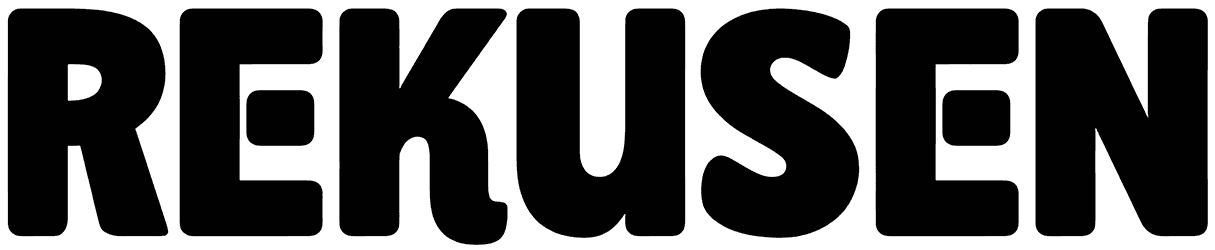
Rekusen Font
You don’t need to read a text to realize it’s fun as long as it’s written in Rekusen. It’s a sans serif font, supposedly modern, but this one is also playful.
Having tons of intrigue to offer to your design, Rekusen seems to be the full package. That’s ironic because, with all the qualities it possesses, it includes none of the odd numbers. Use it as a poster font for your summer designs and kids’ birthdays, and you’ll love it.